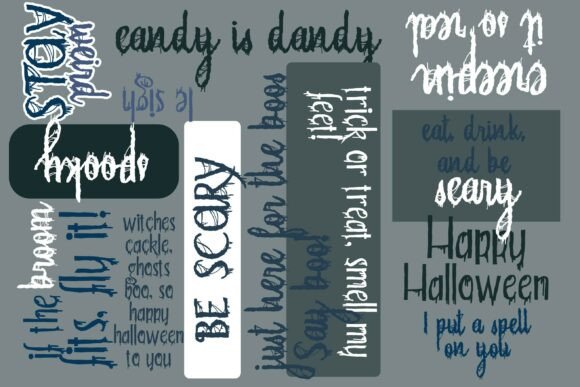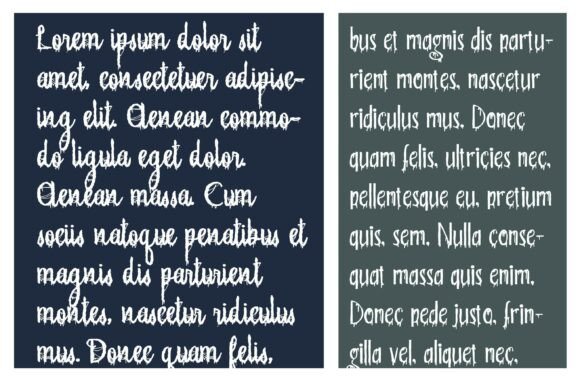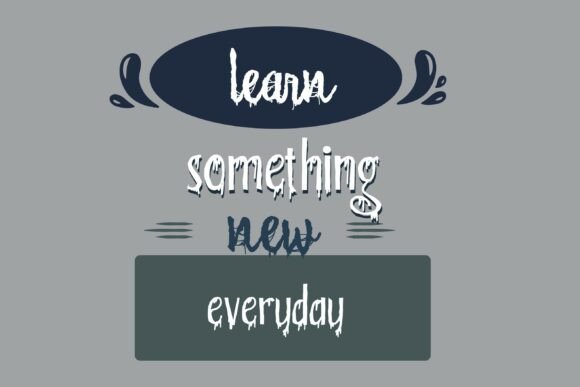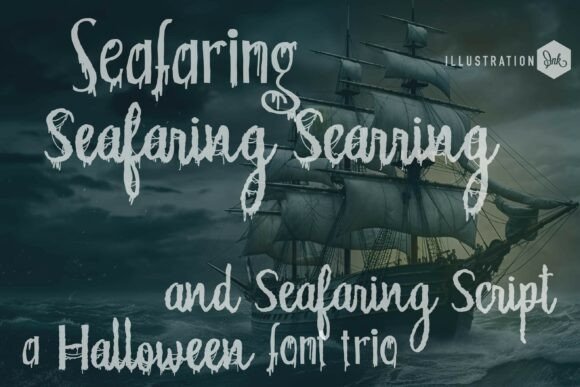
Introduction to Seafaring Scarring Trio Font
The Seafaring Scarring hand-crafted font trio combines a drippy, messy, sans-serif font with a perfectly coordinated script and a scary, drippy version of the same script.
With all family members combined of the 3 fonts, you get 9 fonts altogether Seafaring Font Trio is a hauntingly beautiful type collection that captures the eerie spirit of the sea and the thrill of ghostly adventures.
Key Features of Seafaring Scarring Trio Font